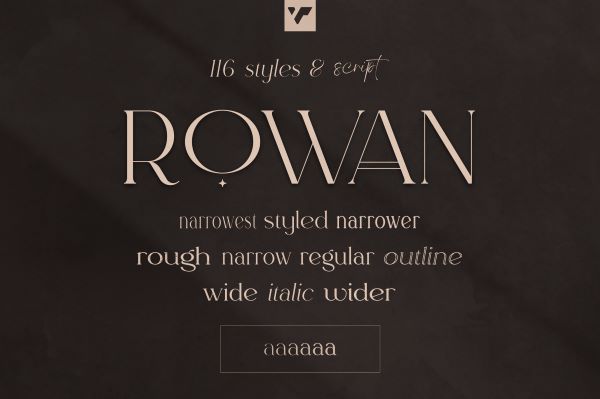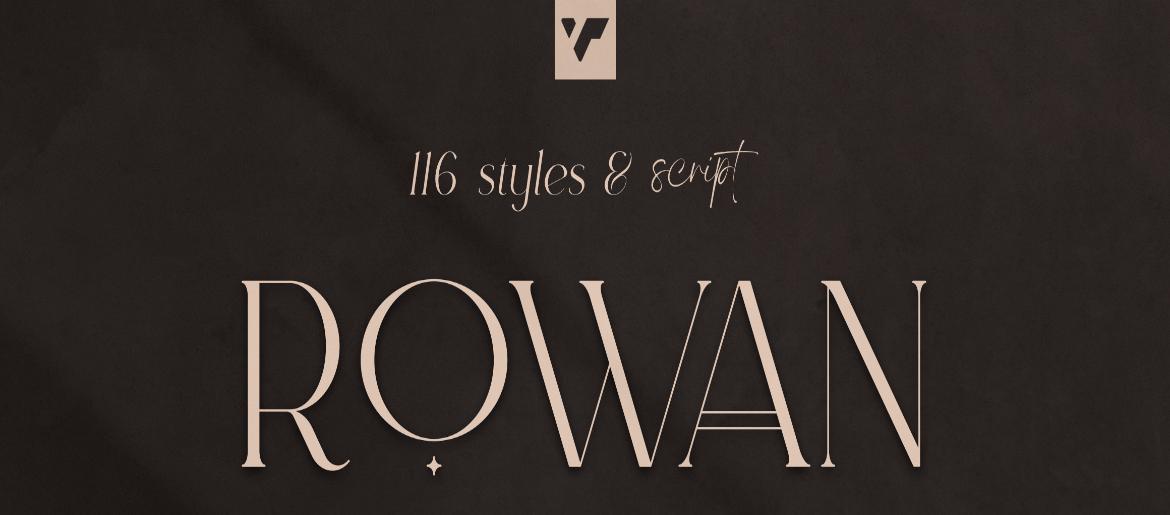
Rowan Font
Rowan by VP creativeshop is a sweeping typeface system that packs an exceptional range into a single family — 116 styles spanning narrow italics, wide styled variants, and a companion script, all sharing a common visual DNA. Built with the ambition to cover virtually every typographic scenario a designer might encounter, it moves from condensed editorial grace to expansive display confidence without losing its refined character. The free release includes two styles: Narrower 4 Italic and Wide 5 Styled — a generous sample of a family that fully justifies exploring the complete set. Available for personal use at no cost.